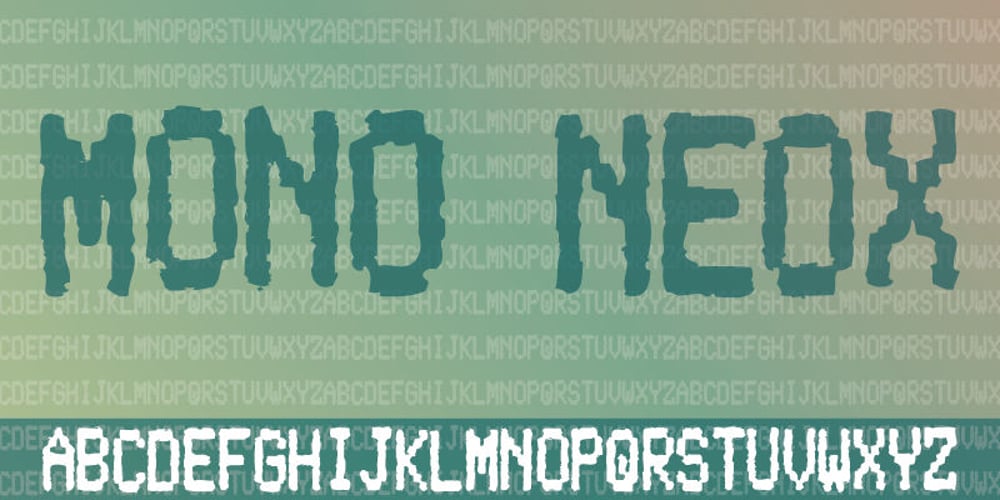
Mono Neox Font Family was designed by Jakob Fischer and published by PizzaDude.dk. Mono Neox contains 1 styles and family package options. A wrecked, monospaced font containing 368 ligatures along with unique accented characters! You will need to use OpenType supporting applications to use the autoligatures.